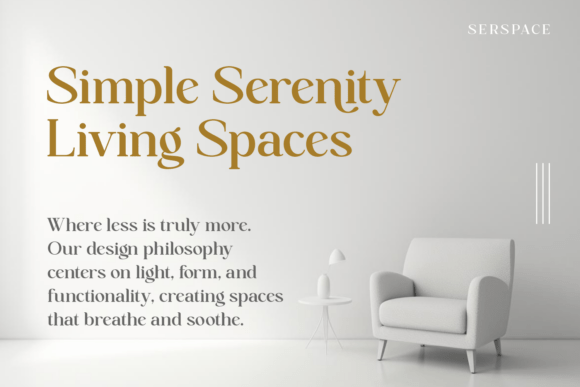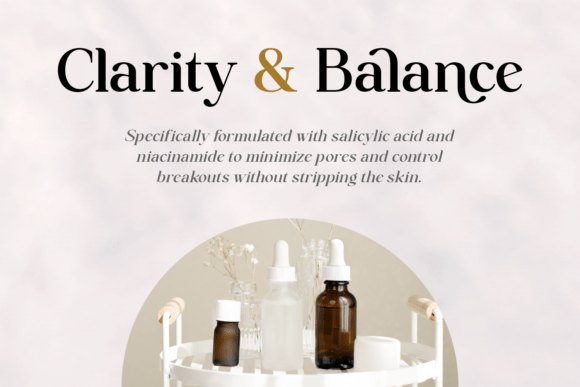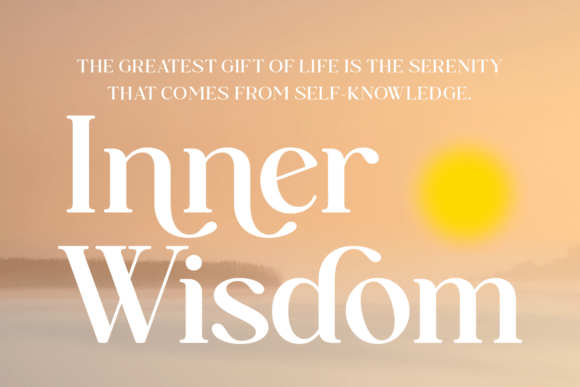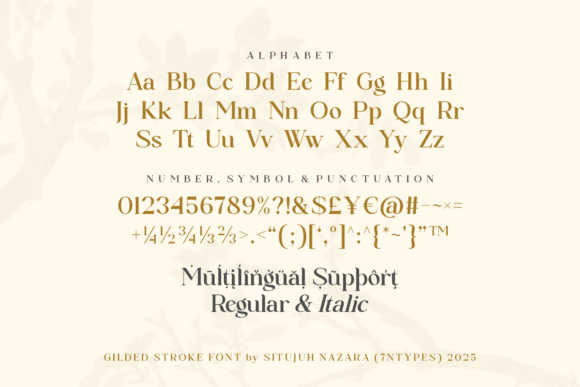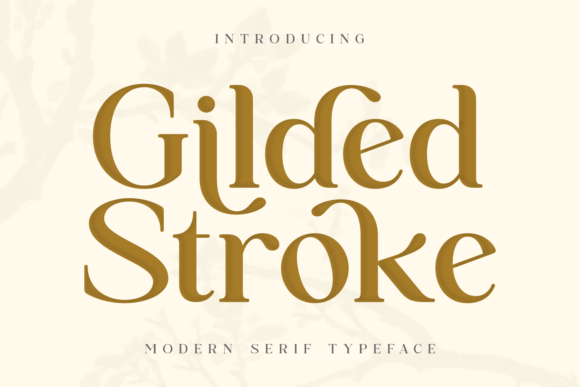
Introducing Gilded Stroke Font: The Epitome of Elegance and Sophistication
In the realm of typography, few fonts manage to strike a balance between classic structure and modern flair. Gilded Stroke, a contemporary serif typeface, is one such exceptional design that seamlessly marries the best of both worlds. With its high-contrast strokes, unique terminals, and elegant proportions, Gilded Stroke is poised to elevate high-end editorial layouts, premium product packaging, fashion mastheads, and sophisticated brand identities.
The Distinctive Characteristics of Gilded Stroke
Gilded Stroke’s design is characterized by its high-contrast strokes, which lend the typeface a sense of drama and luxury. The unique, liquid-smooth terminals evoke a touch of calligraphic influence, adding an organic, handcrafted feel to the font. These distinctive features, combined with subtle, organic curves, result in a typeface that exudes quiet confidence and sophistication.
Perfect for High-End Editorial Layouts
For editorial designers seeking a font that conveys elegance and refinement, Gilded Stroke is an impeccable choice. Its classic structure and modern flair make it suitable for a wide range of applications, from luxury lifestyle magazines to high-end fashion publications. The font’s high-contrast strokes and elegant proportions ensure that headlines, subheadings, and body copy are presented with clarity and poise.
Elevate Your Brand Identity with Gilded Stroke
In the world of branding, typography plays a crucial role in conveying a company’s values and personality. Gilded Stroke offers a sophisticated solution for brands aiming to project a sense of luxury, refinement, and timelessness. Whether used for logos, marketing materials, or packaging, this versatile typeface is sure to make a lasting impression. Its unique blend of classic and modern elements ensures that your brand stands out in a crowded market.
Gilded Stroke in Packaging Design
Premium product packaging demands a font that communicates luxury, quality, and attention to detail. Gilded Stroke’s elegant design and high-contrast strokes make it an ideal choice for packaging designers seeking to create a lasting impression. From high-end cosmetics to luxury food products, Gilded Stroke can help elevate your brand’s visual identity and create a sense of exclusivity.
Fashion and Beauty Applications
In the fashion and beauty industries, typography plays a vital role in conveying style, sophistication, and glamour. Gilded Stroke’s modern serif design and elegant proportions make it a natural fit for fashion mastheads, beauty brand identities, and high-end advertising campaigns. The font’s unique terminals and organic curves add a touch of personality and whimsy, ensuring that your brand stands out in a competitive market.
Key Features of Gilded Stroke
- High-contrast strokes for added drama and luxury
- Unique, liquid-smooth terminals with a touch of calligraphic influence
- Elegant proportions and subtle, organic curves
- Classic structure with a modern flair
- Perfect for high-end editorial layouts, premium product packaging, fashion mastheads, and sophisticated brand identities
Gilded Stroke is a masterful blend of classic structure and modern flair, making it an exceptional addition to any designer’s typographic arsenal. With its elegant proportions, high-contrast strokes, and unique terminals, this contemporary serif typeface is poised to elevate a wide range of design applications. Whether you’re a seasoned designer or a crafty entrepreneur, Gilded Stroke offers a sophisticated solution for those seeking to convey luxury, refinement, and timelessness.
Experience the perfect marriage of classical structure and contemporary flair with Gilded Stroke. Discover the versatility and elegance of this exceptional typeface and take your designs to new heights of sophistication and style.